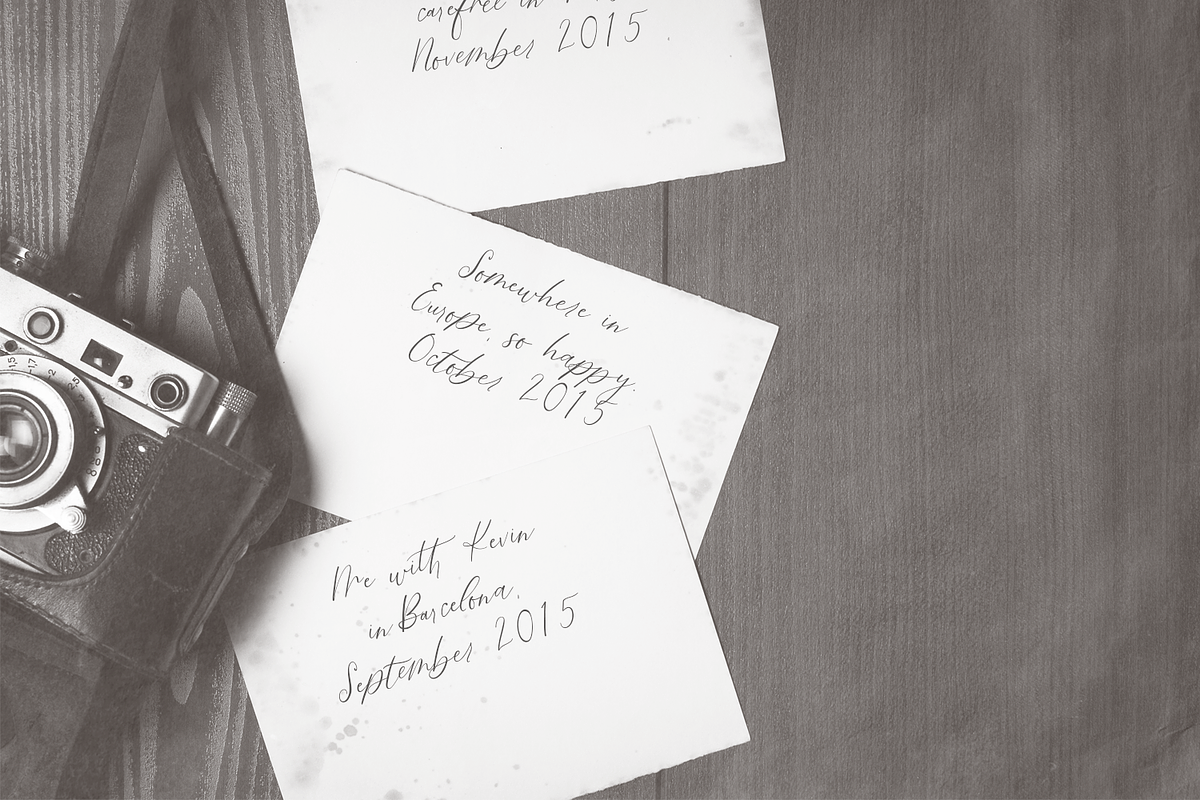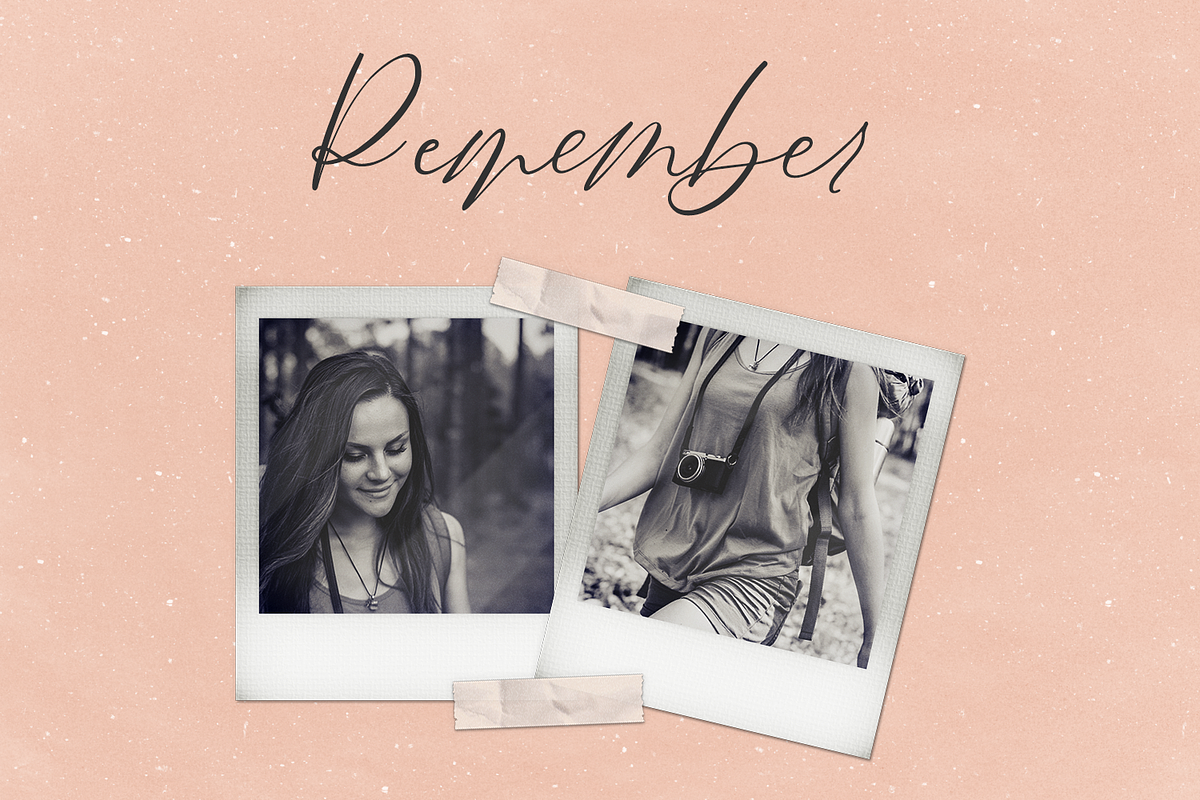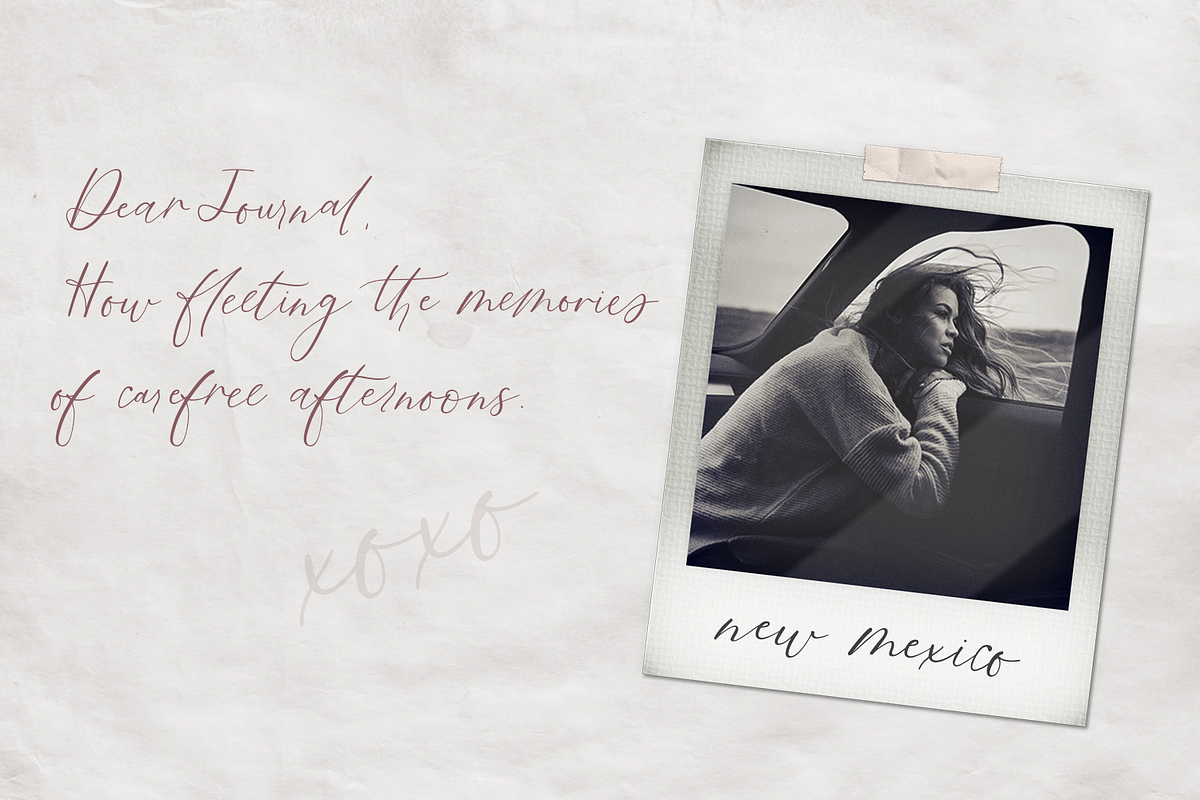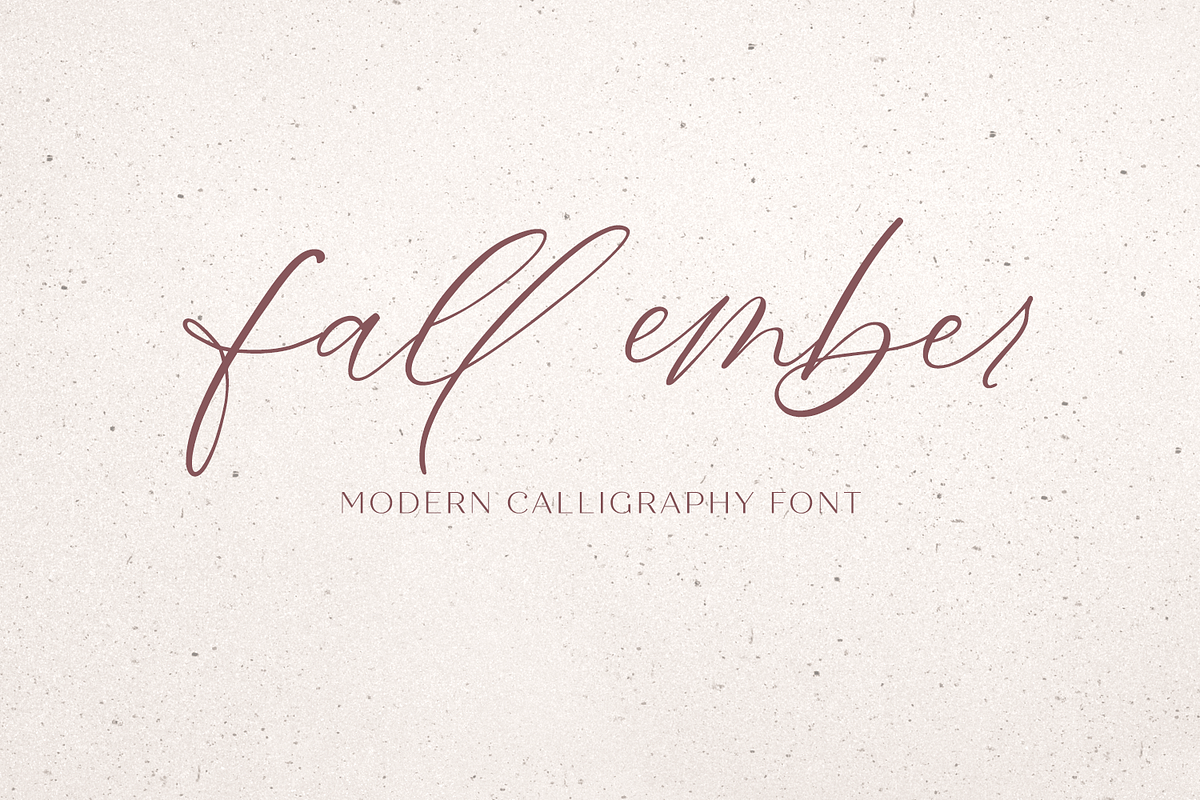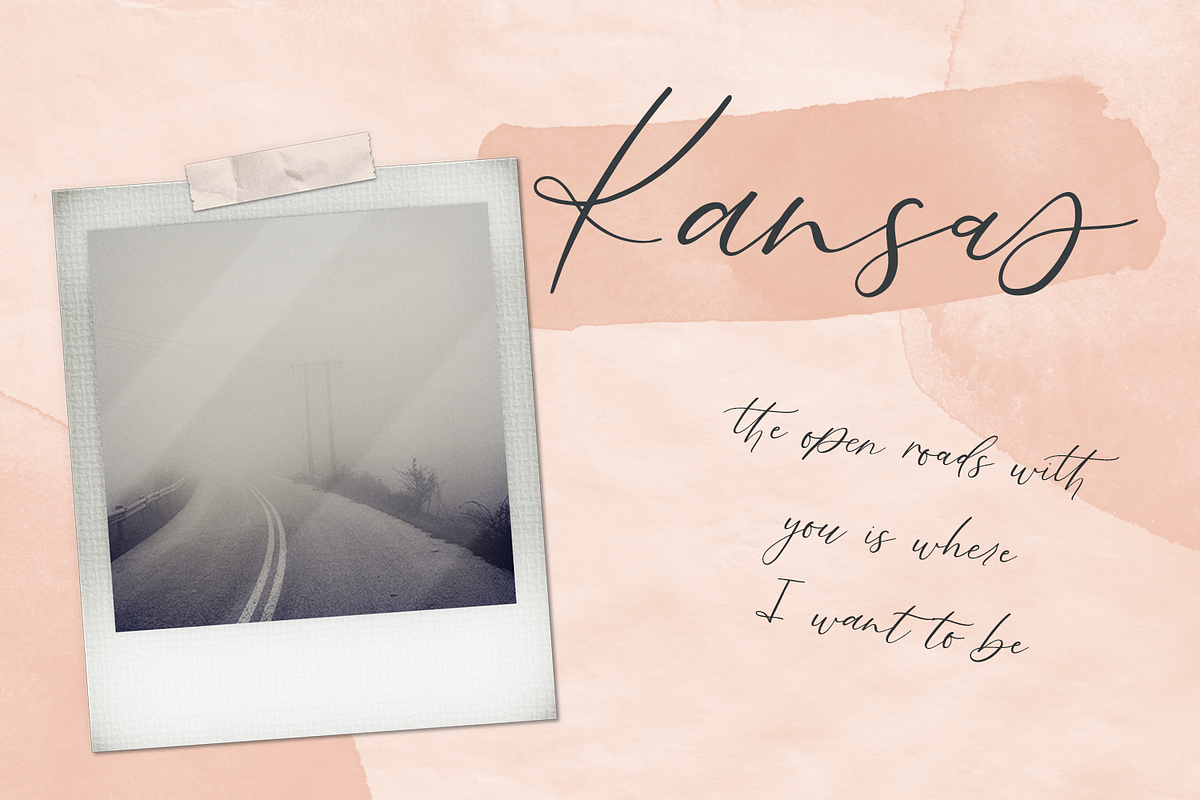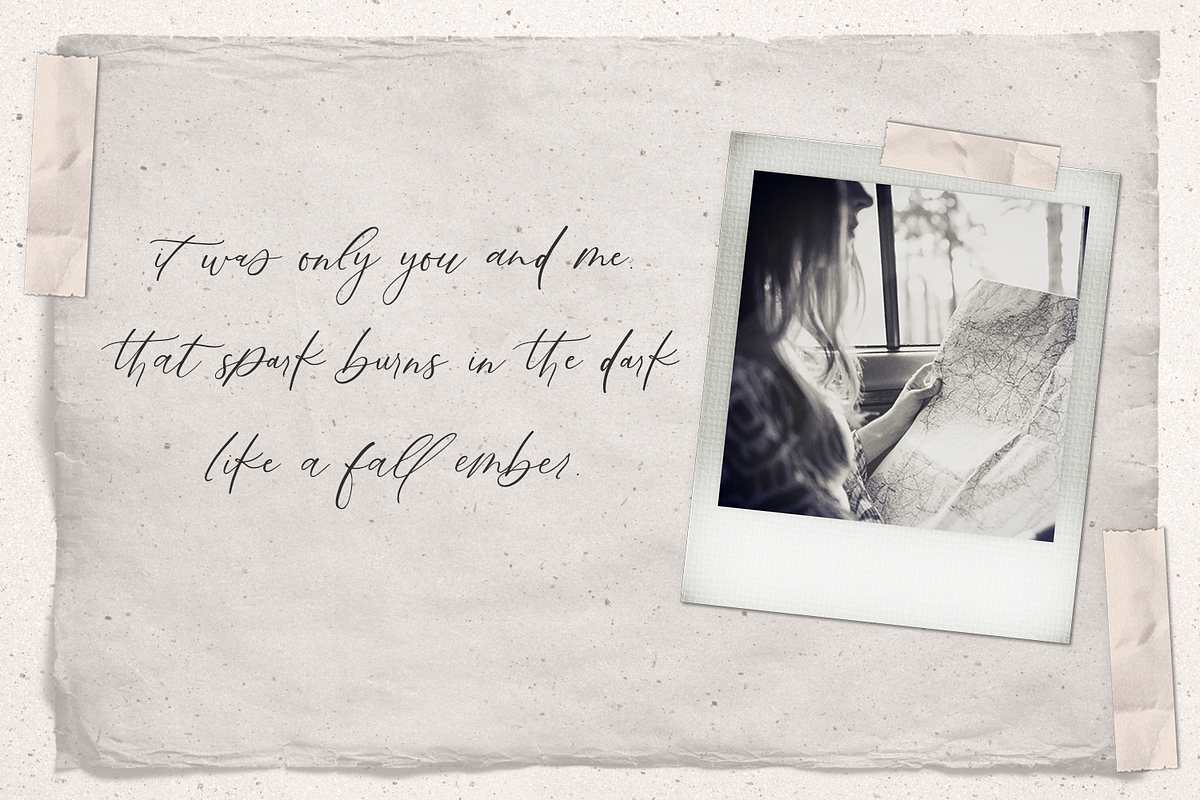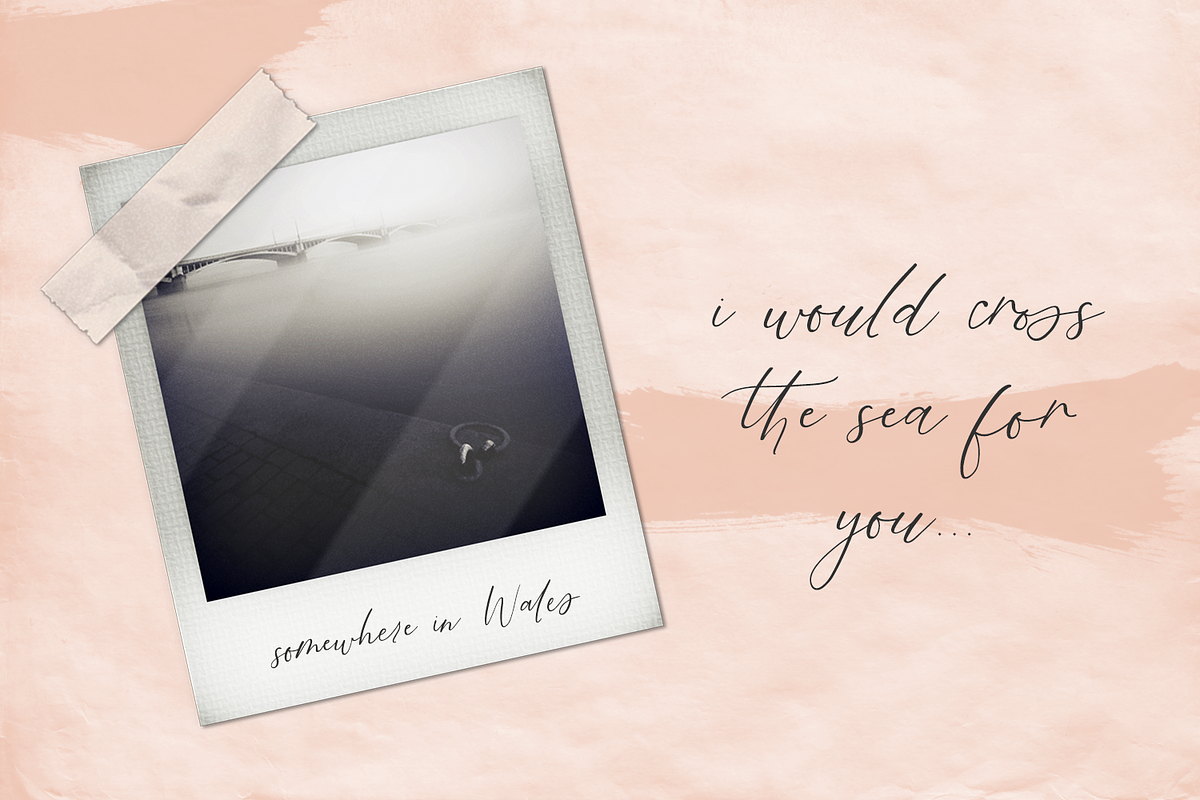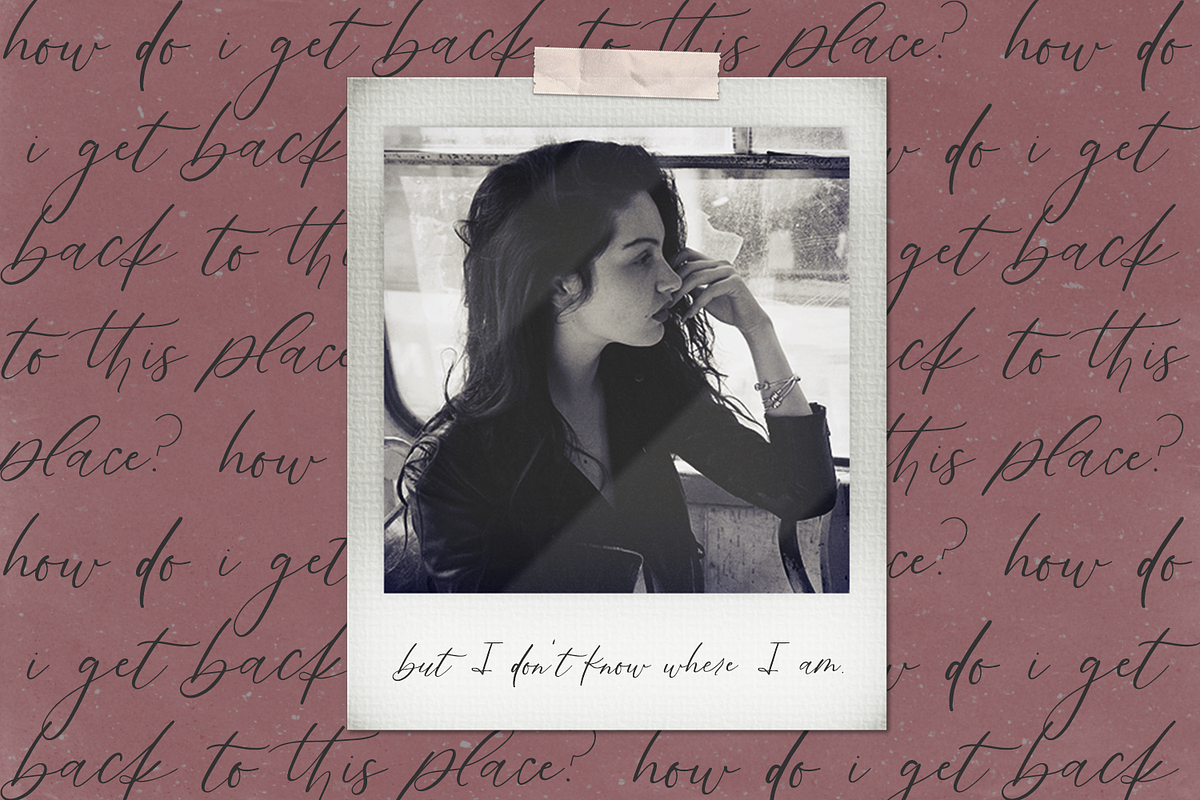
Fall Ember Calligraphy Font
Introducing Fall Ember Calligraphy Script, a leaning, flowy font. Fall Ember is inspired by wanderlust & memories, featuring a variety of alternate characters to customize your text. Fall Ember has an effortless yet refined quality, making it an excellent fit for projects of all types. Fall Ember Script is sophisticated, but slightly informal, making it feel approachable and welcoming.
full upper + lowercase characters
numbers + punctuation
40 lowercase alternate characters
47 discretionary + standard ligatures: er, sa, se, si so, su, ab, ad, ah, ak, al, an, ar, as, at, bb, bl, cc, ch, ck, co, dd, ed, ee, em, en, er, es, ff, fi, fl, fo, gg, gh, ir, ll, mm, nn, oo, or, os, pp, rr, ss, th, tt, ur